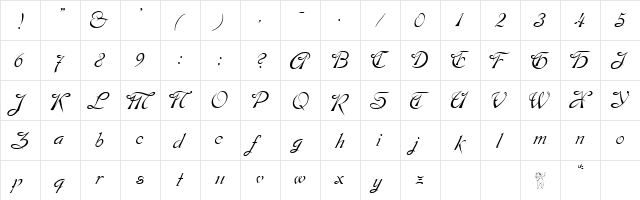
DobkinScript Normal
Design Context for DobkinScript Typeface
DobkinScript flows with the natural rhythm of handwritten lettering, making it ideal for designs that call for warmth and personal expression.
Font Pairing: Combine DobkinScript with a simple geometric sans for maximum contrast — the tension between flowing curves and clean structure is a classic typographic pairing.
Pro Tip: Pair DobkinScript with a clean sans-serif for supporting text. The contrast between fluid script and geometric structure creates an elegant typographic hierarchy.